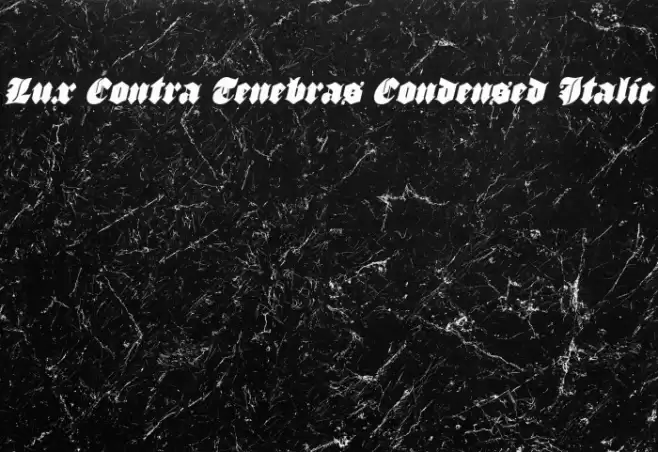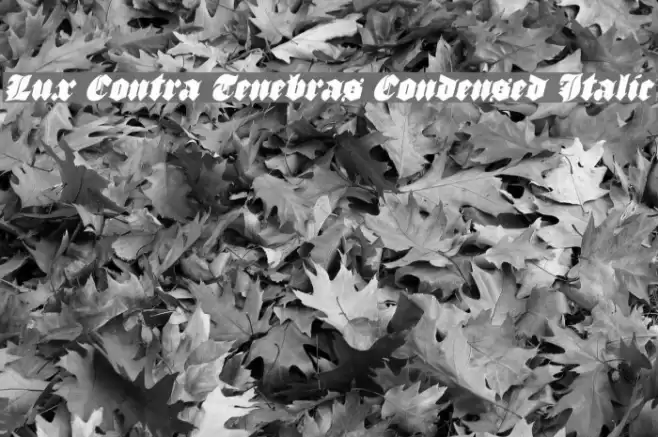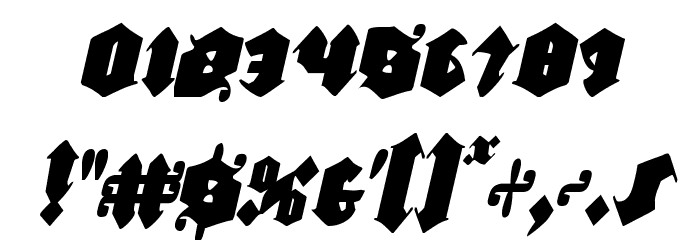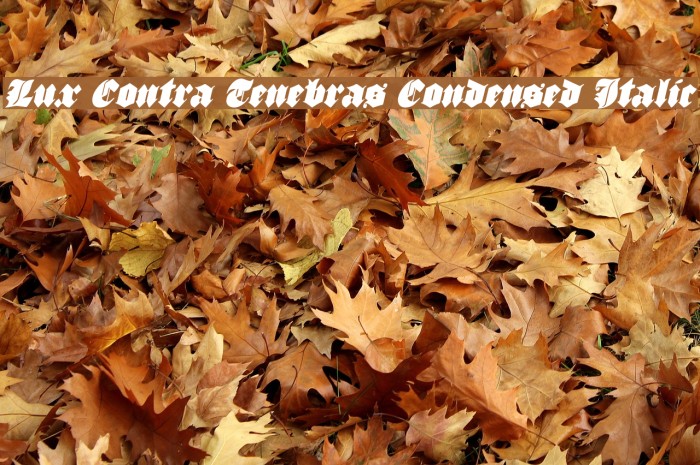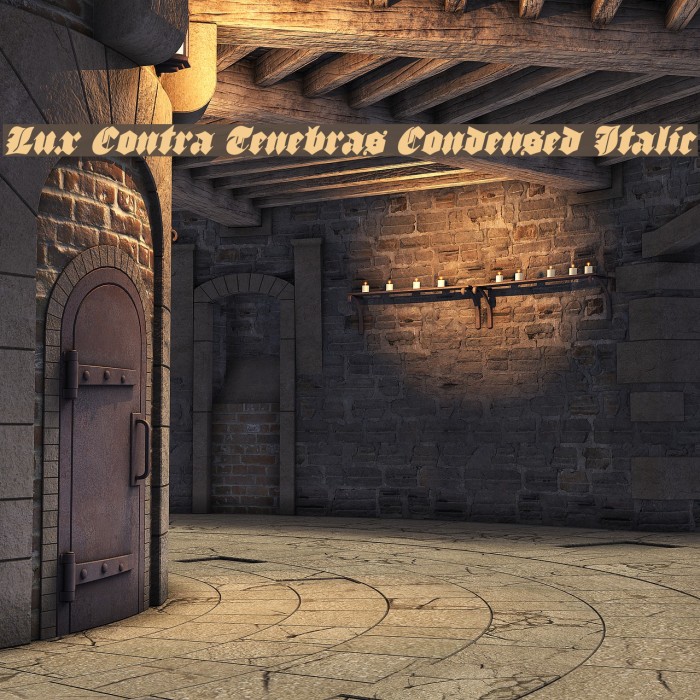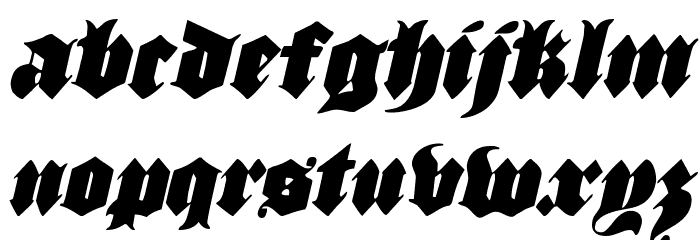
Lux Contra Tenebras Condensed Italic Font
Lux Contra Tenebras Condensed Italic Description
This font exhibits a bold and dramatic style, reminiscent of traditional blackletter typography. The characters are intricately designed with sharp, angular strokes and pronounced serifs, giving it a gothic and medieval appearance. The uppercase letters are particularly ornate, featuring elaborate flourishes and embellishments. The lowercase letters maintain the same stylistic elements but are slightly more subdued. Numbers and special characters are consistent with the overall aesthetic, ensuring a cohesive look. This font's condensed nature allows for efficient use of space while maintaining its striking visual impact.
A bold, gothic blackletter font with intricate, angular strokes and condensed spacing from Uncategorized fonts.
- Proposed Projects: Ideal for projects requiring a historical or medieval theme, such as book covers, posters, or themed event invitations.
- Character Spacing: Tight
- Overall Style: Gothic